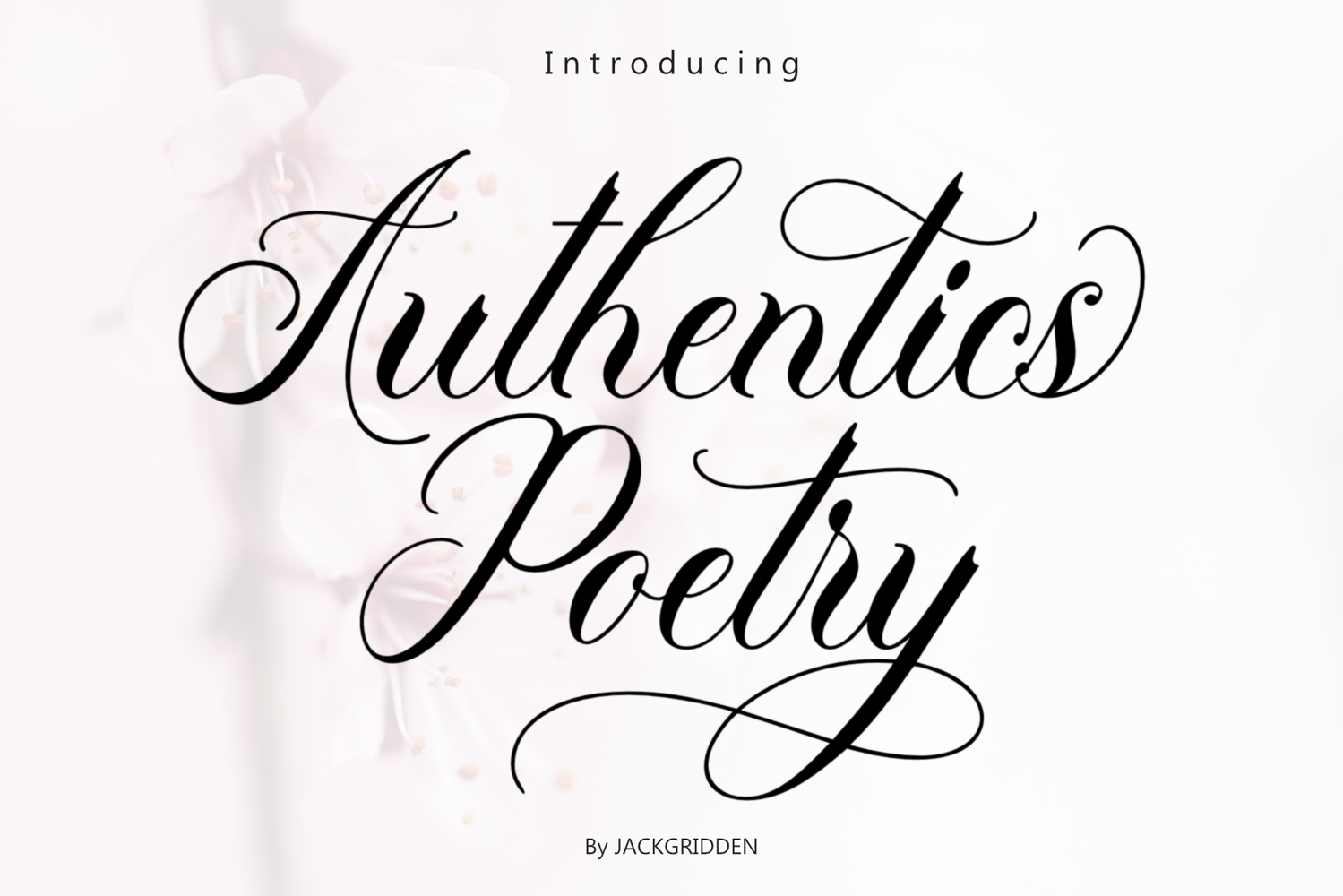
Authentics Poetry
Authentics Poetry is a premium script font that exudes elegance and sophistication. With its intricate swirls and loops, this font is perfect for adding a touch of charm to invitations, branding, and other creative projects. Its timeless style and graceful curves make it a versatile choice for those looking to add a touch of poetry to their designs.
Authentics Poetry